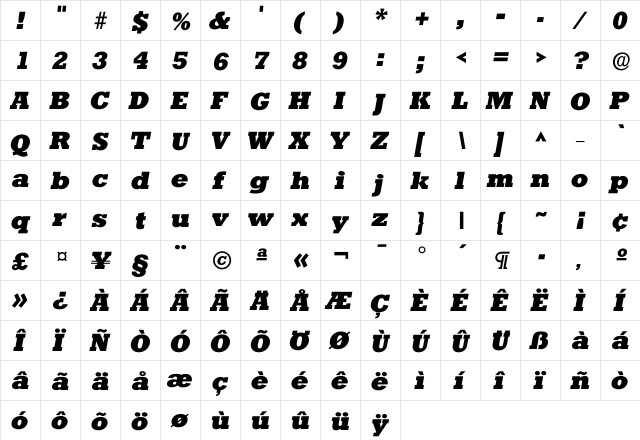
Istafford ExtraBold
Design Context for Istafford Typeface
Istafford is a composed and adaptable typeface that performs quietly and consistently across a wide range of design contexts. The heavy weight commands attention and anchors typographic hierarchies.